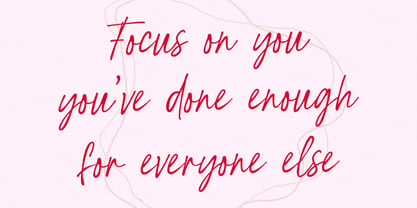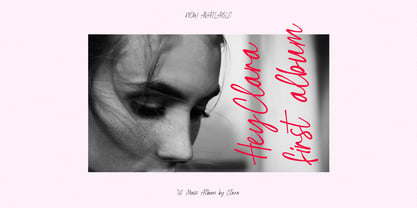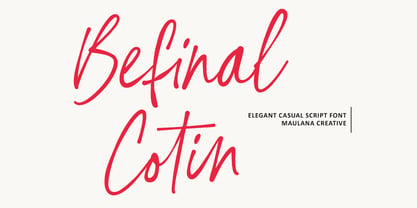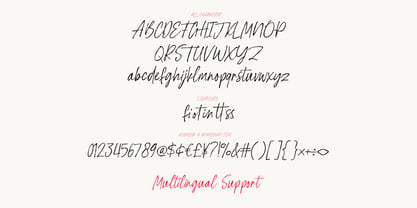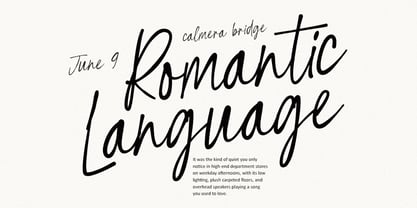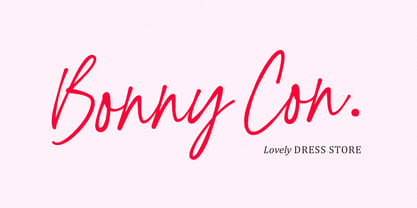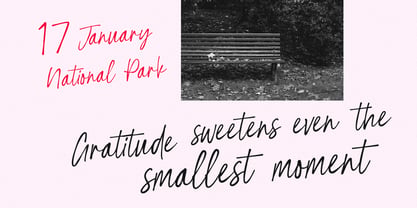
MC Befinal Cotin
by Maulana Creative
The MC Befinal Cotin Font Family was designed by Gilang Maulana and published by Maulana Creative. MC Befinal Cotin contains 1 styles. More about this family
Befinal Cotin is a sophisticated yet relaxed script font that perfectly captures the essence of modern handwriting. Created by Maulana Creative, this typeface features fluid, elongated strokes and a natural flow that exudes a sense of effortless elegance. Its casual signature style makes it an ideal choice for high end branding, fashion logos, romantic wedding invitations, and expressive social media quotes. With its comprehensive character set, including ligatures and multilingual support, Befinal Cotin offers a versatile and organic aesthetic for any creative project, human touch.
Designers: Gilang Maulana
Foundry: Maulana Creative